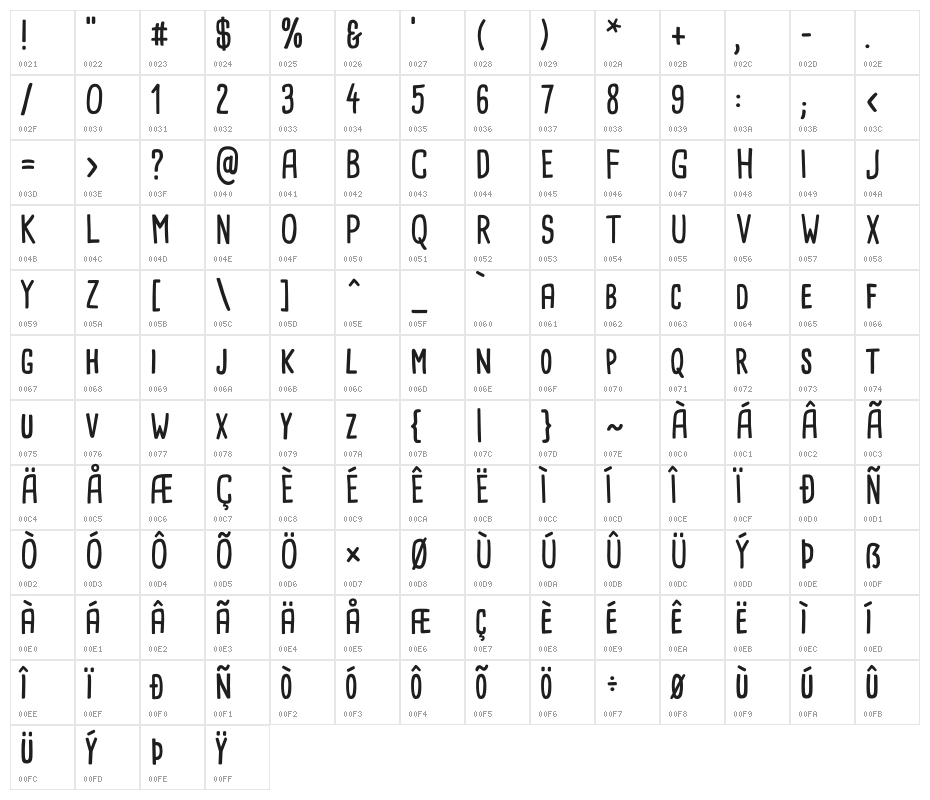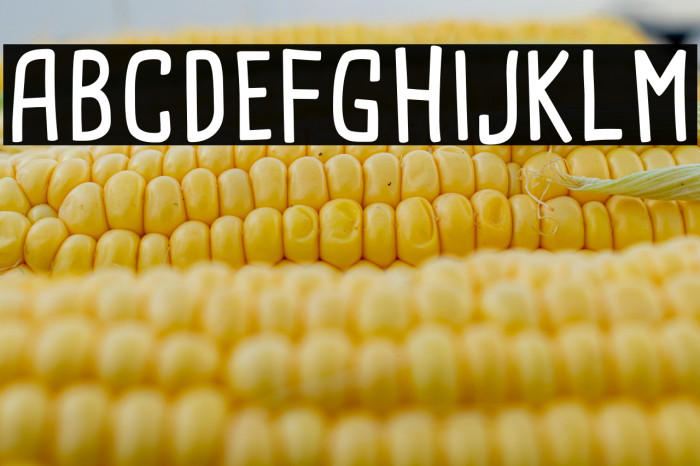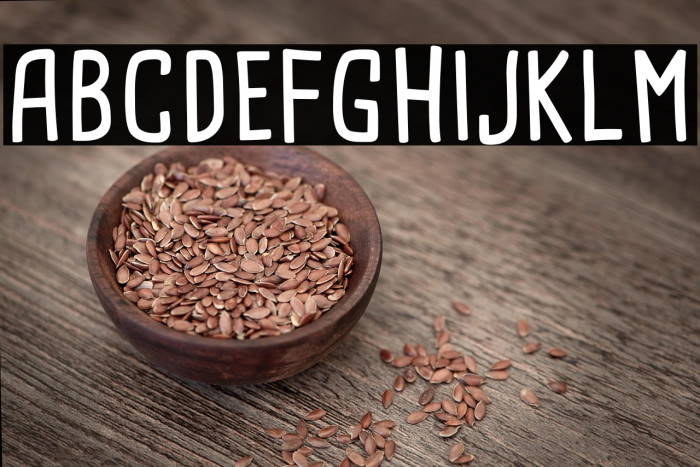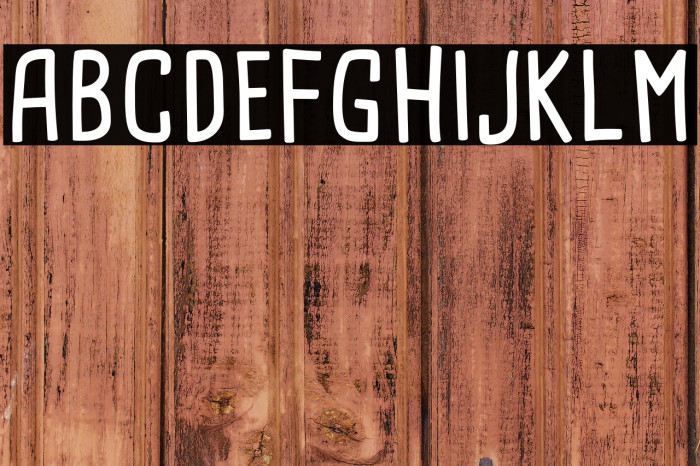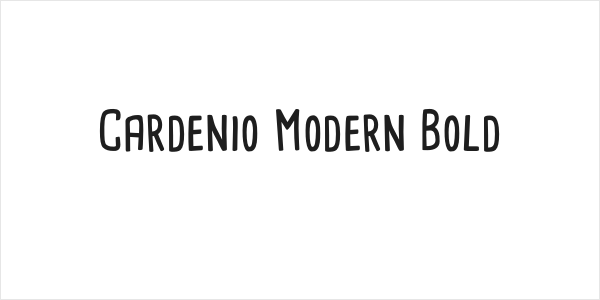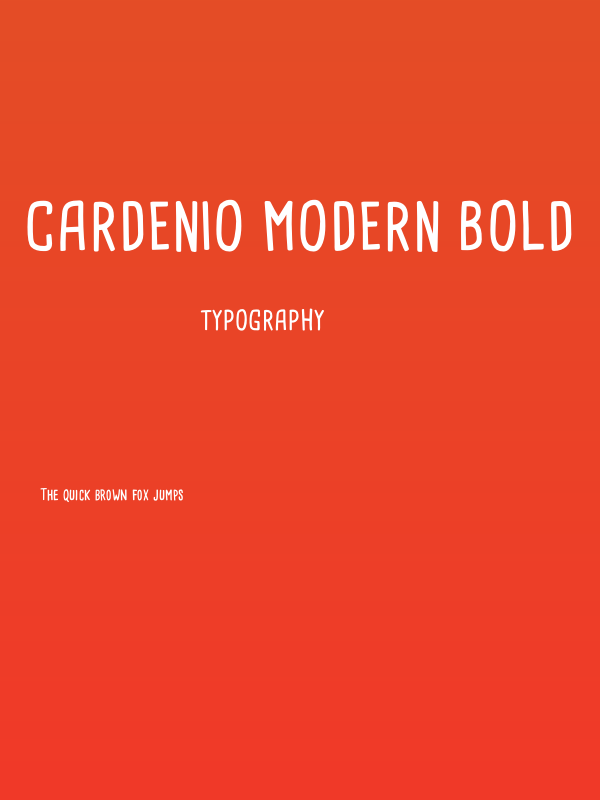
Cardenio Modern Bold Font
Cardenio Modern Bold Description
This font features a bold and playful style with a hand-drawn appearance. The characters are slightly irregular, giving it a casual and approachable feel. The uppercase and lowercase letters maintain a consistent height, while the numbers and special characters are designed to complement the overall aesthetic. The strokes are thick and rounded, contributing to its boldness and making it highly legible. This font is ideal for projects that require a friendly and informal touch, such as children's books, greeting cards, or playful branding.
| Overall Style | Playful, Casual |
| Proposed Projects | Children's books, greeting cards, playful branding, casual posters. |